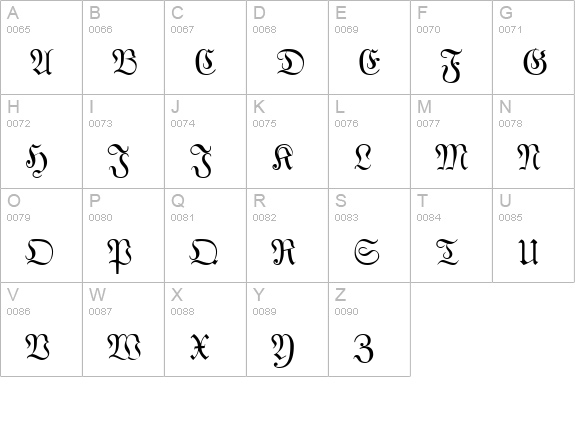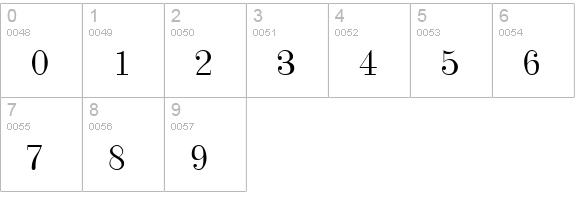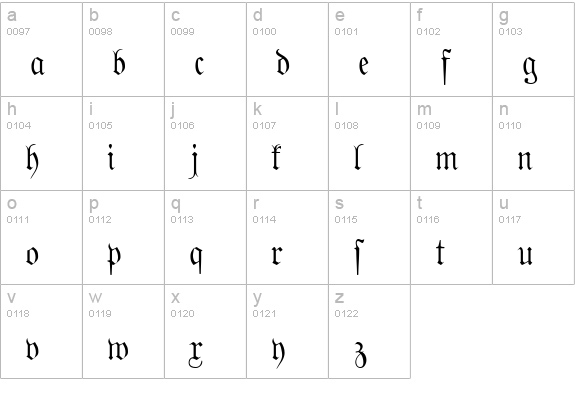
PhraxturedDeutsch Font Details
Introducing PhraxturedDeutsch font, a stunning display typeface that truly embodies the essence of boldness and creativity. With its unique fractured design, this font breaks boundaries and adds a touch of edginess to any project. PhraxturedDeutsch font is not just visually captivating, but also highly versatile, making it perfect for a wide range of design applications. Whether you're designing eye-catching posters, attention-grabbing logos, or striking headlines, this font will undoubtedly make a lasting impression. What makes PhraxturedDeutsch font even more appealing is that it is available for free download at FontsMarket.com. This means that you can easily access and utilize this exceptional font in your projects without any hassle. With its clean lines and carefully crafted details, PhraxturedDeutsch font brings a modern and contemporary feel to any design. Its distinct and intricate fractures add depth and dimension, allowing your text to stand out from the crowd. Furthermore, this font offers a wide range of characters and ligatures, giving you the freedom to experiment and create truly unique and personalized designs. Whether you want to create a bold and impactful statement or convey a sense of elegance and sophistication, PhraxturedDeutsch font has got you covered. So, why wait? Discover the limitless possibilities that PhraxturedDeutsch font has to offer. Download it for free at FontsMarket.com and let your creativity soar. Unleash the power of this extraordinary font and make your designs unforgettable.